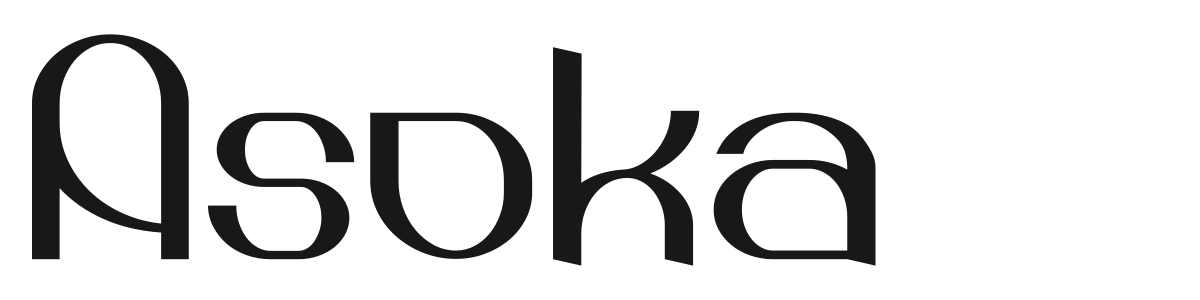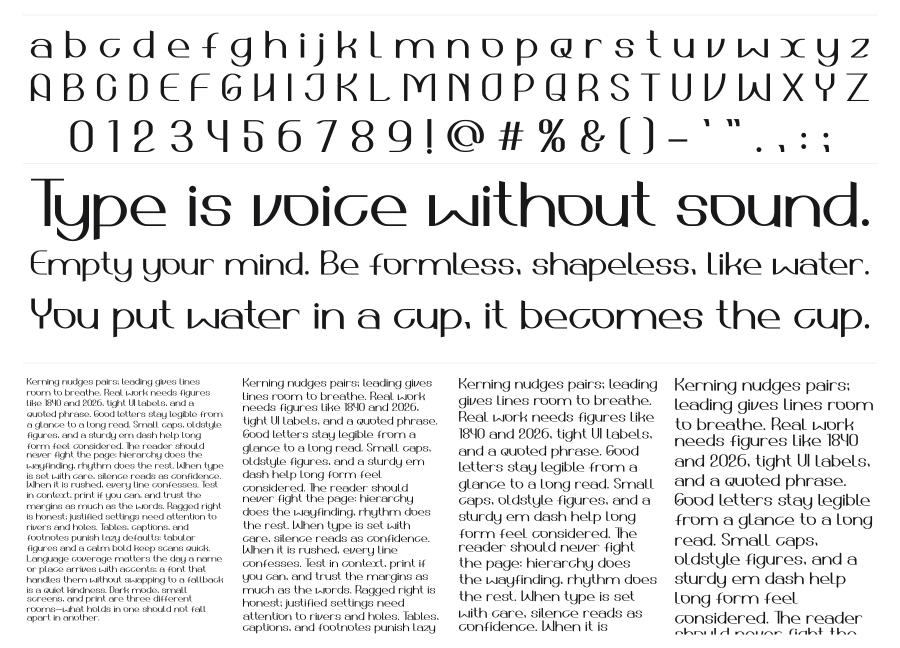
Asoka
by Rahma Tillah
Asoka is a wide, light sans-serif with gently curved stroke terminals and open, flowing forms. The subtle humanist inflections at certain strokes give it warmth without sacrificing its clean, modern character. It carries an effortless elegance that works well in fashion, beauty, and editorial contexts.